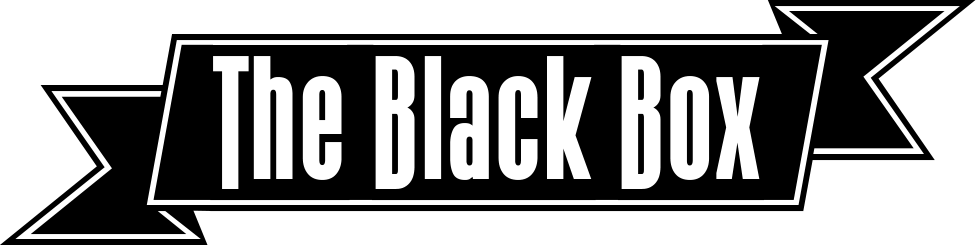
The Black Box Font
The Black Box is a free flag font. All of the characters were designed to create a flag together and this special design makes it perfect for making posters, stickers, logos, and headers for websites. This font comes with both the uppercase and lowercase of the alphabets and the punctuation marks but you won’t find any numbers in this collection.
The Black Box is a negativ condensed sans font, surrounded by a frame, this frame builds a box with border, <i>the font also contains 26 sets of box closures with 676 possible combinations to created great retro banners & ribbons.</i>
Keys for basic ornaments: () [] {} |¬ _
Example of use: (The Black Box)
Bitcoin symbol (ligatures): b#